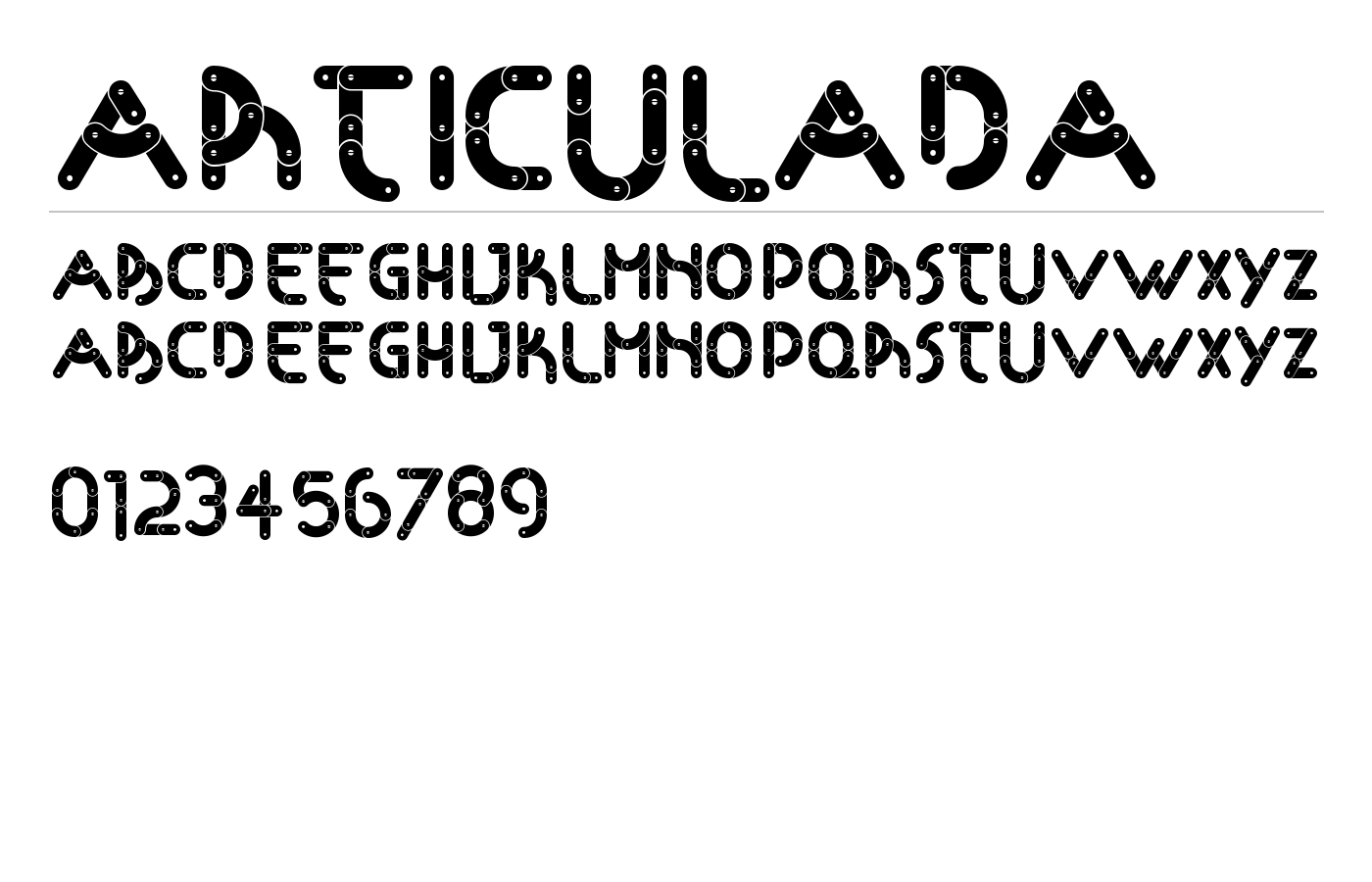
Articulada is a bold, playful sans-serif font with a unique modular design that resembles interconnected mechanical parts or joints. Its rounded terminals and evenly spaced, sturdy letterforms give it a modern, tech-inspired feel, ideal for eye-catching headlines, logos, and creative branding projects that want to convey innovation and fun. This font stands out in contexts where a distinctive, industrial yet approachable style is desired.
Articulada Font
About Articulada Font